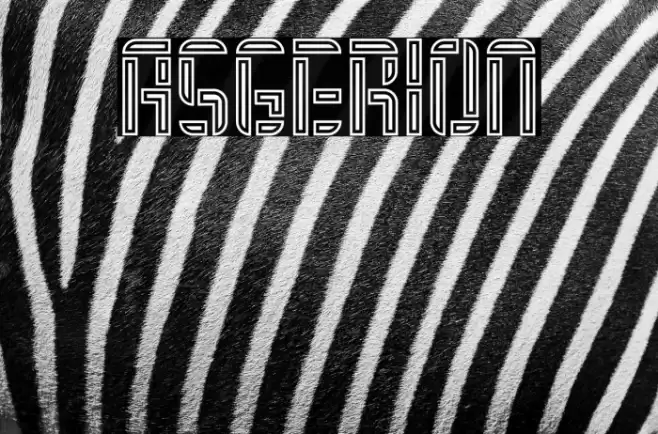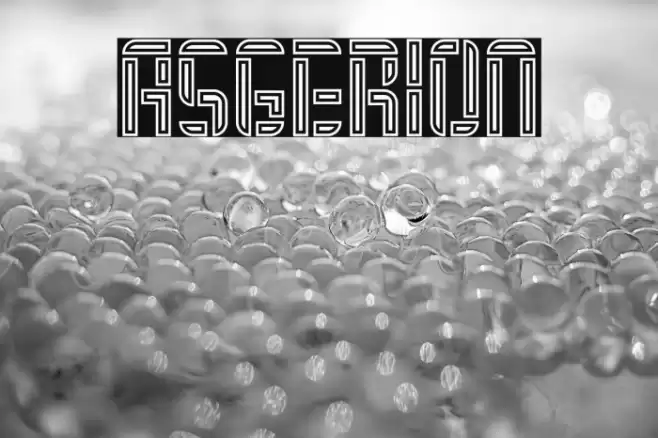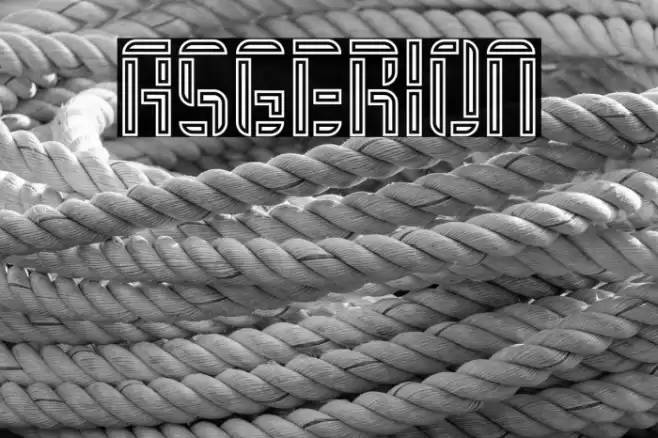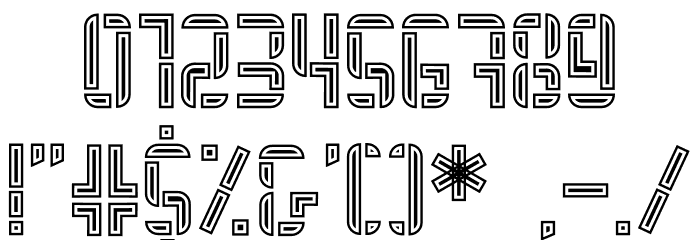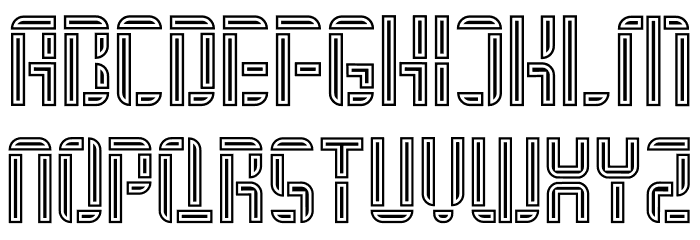
Asgerion Font
Asgerion Description
This font features a unique, geometric design with a hollow, outlined structure. Each character is crafted with precision, showcasing a futuristic and modern aesthetic. The uppercase and lowercase letters maintain a consistent style, with sharp angles and straight lines that create a sense of uniformity and balance. The numbers and special characters follow the same design principles, ensuring a cohesive look across all elements. The font's distinct appearance makes it stand out, offering a bold statement in any design project.
A geometric, outlined font with a futuristic and modern aesthetic from Uncategorized fonts.
- Proposed Projects: Ideal for sci-fi themed designs, modern branding, posters, and digital artwork.